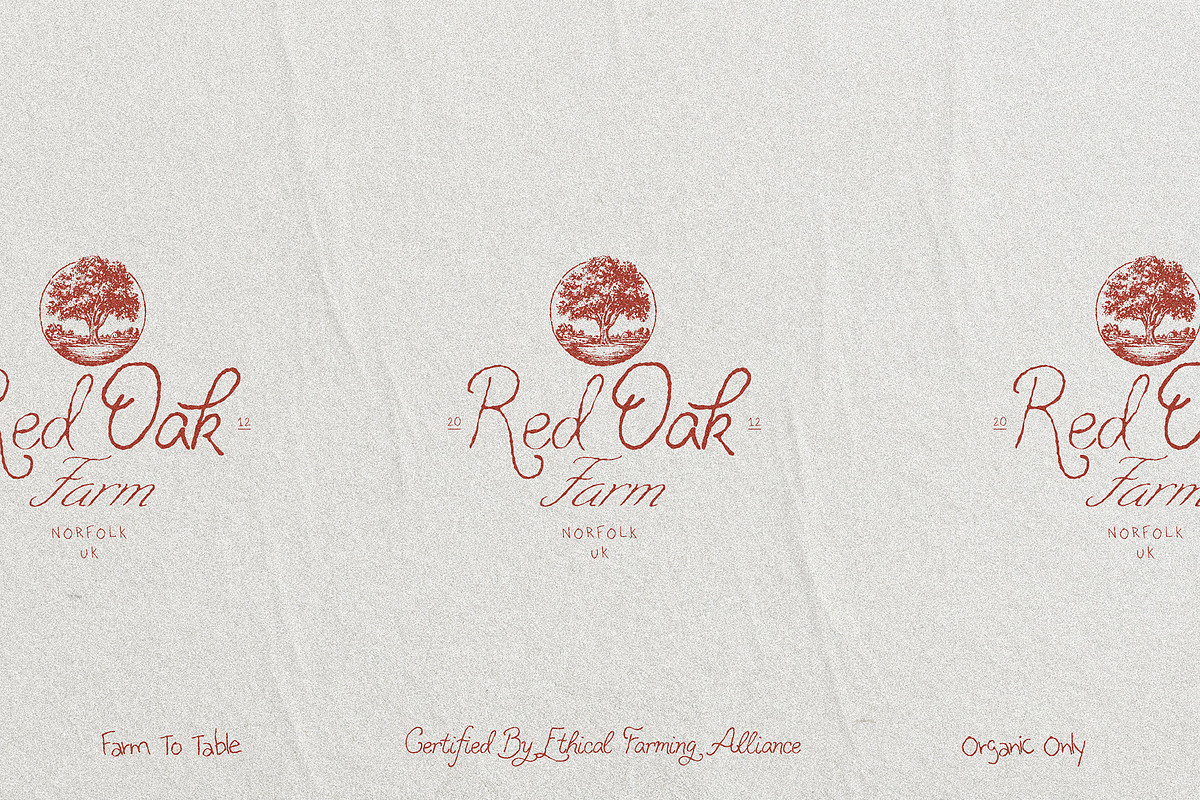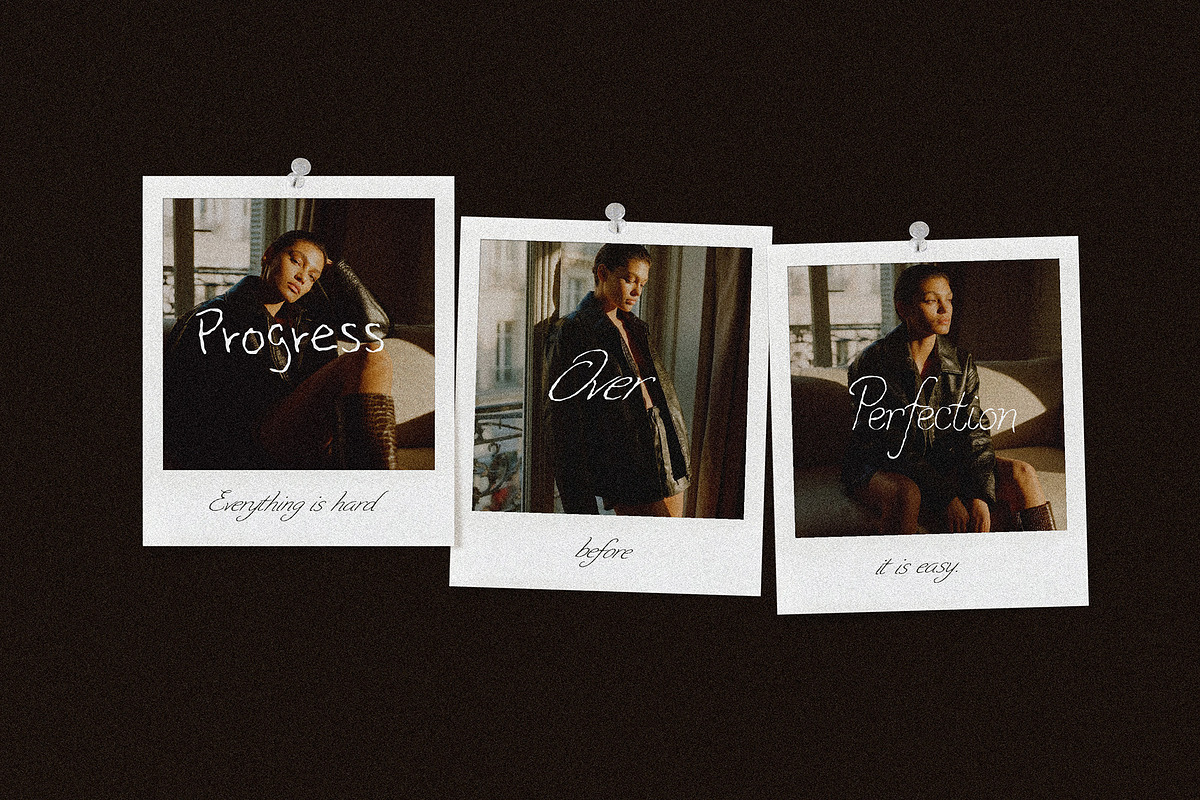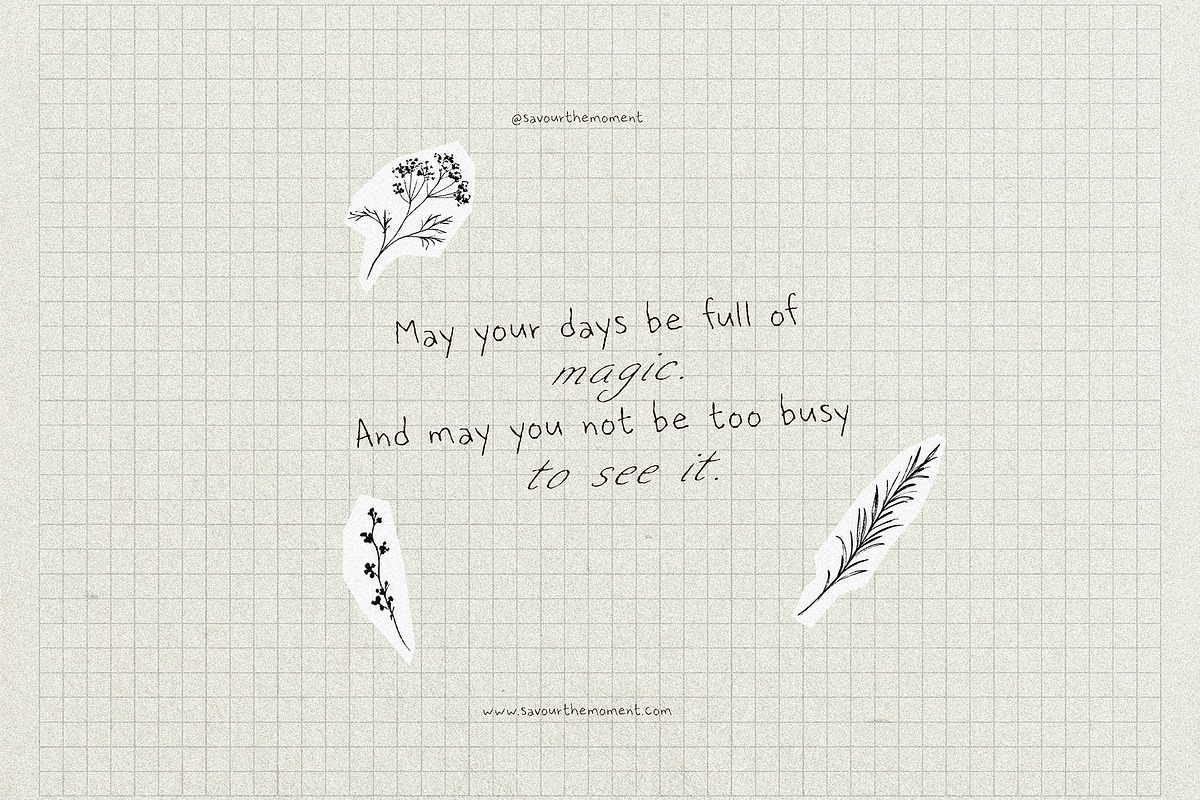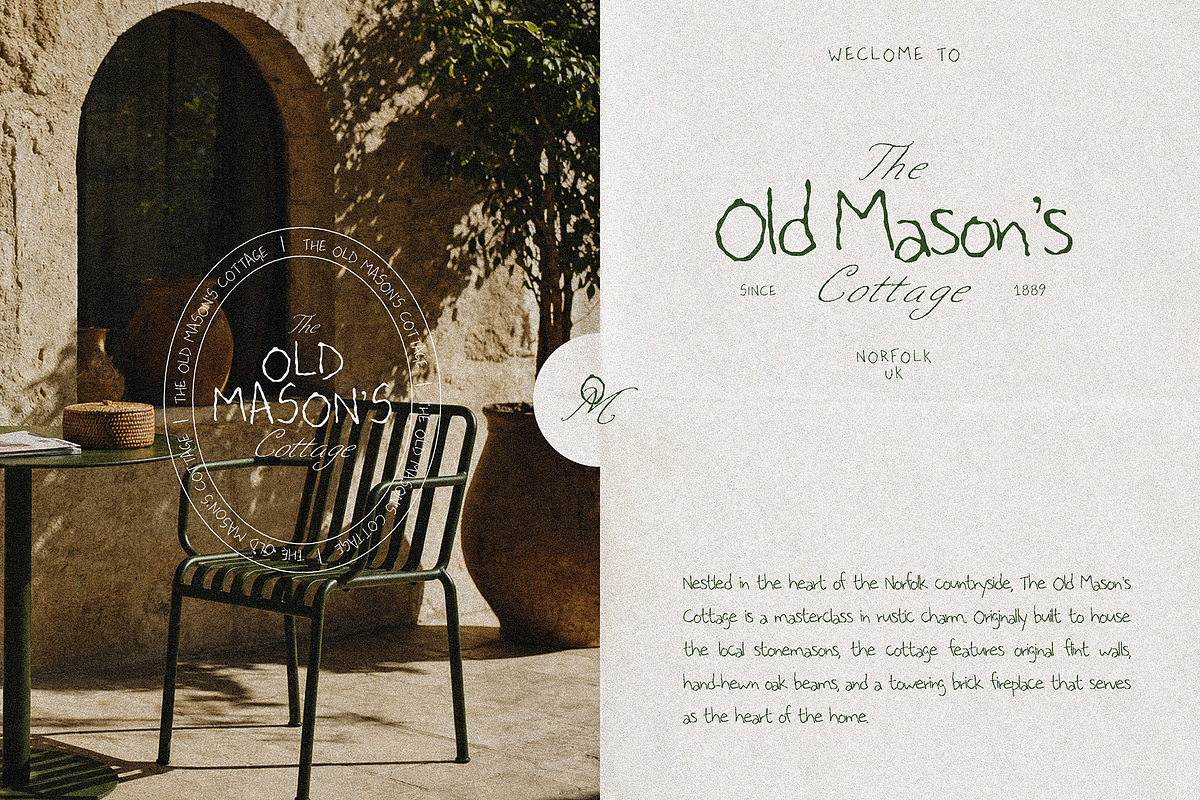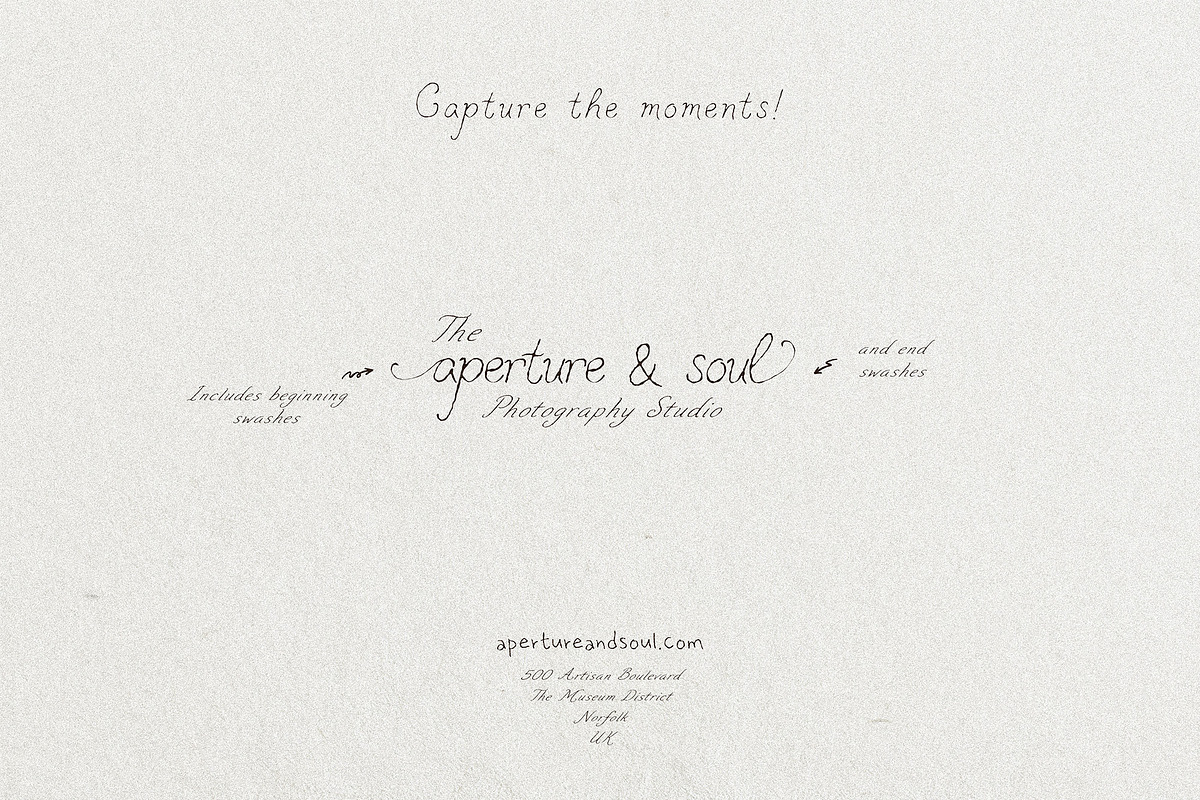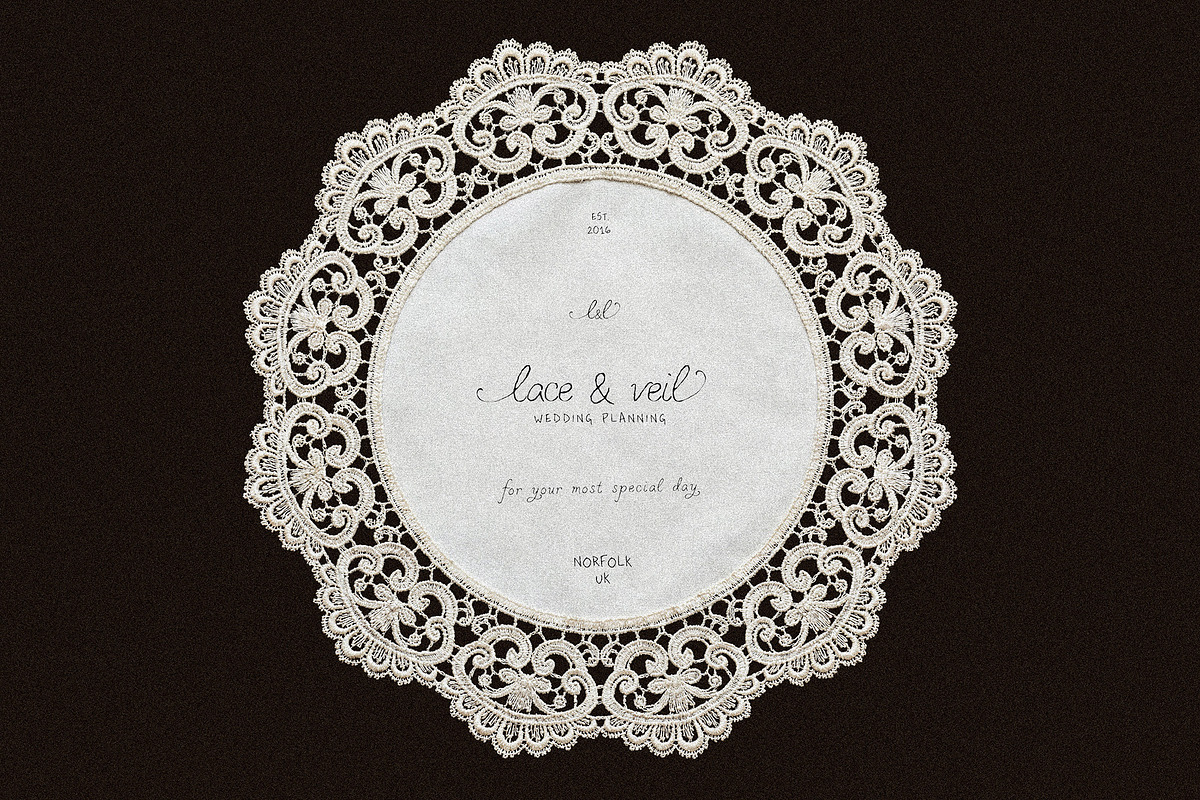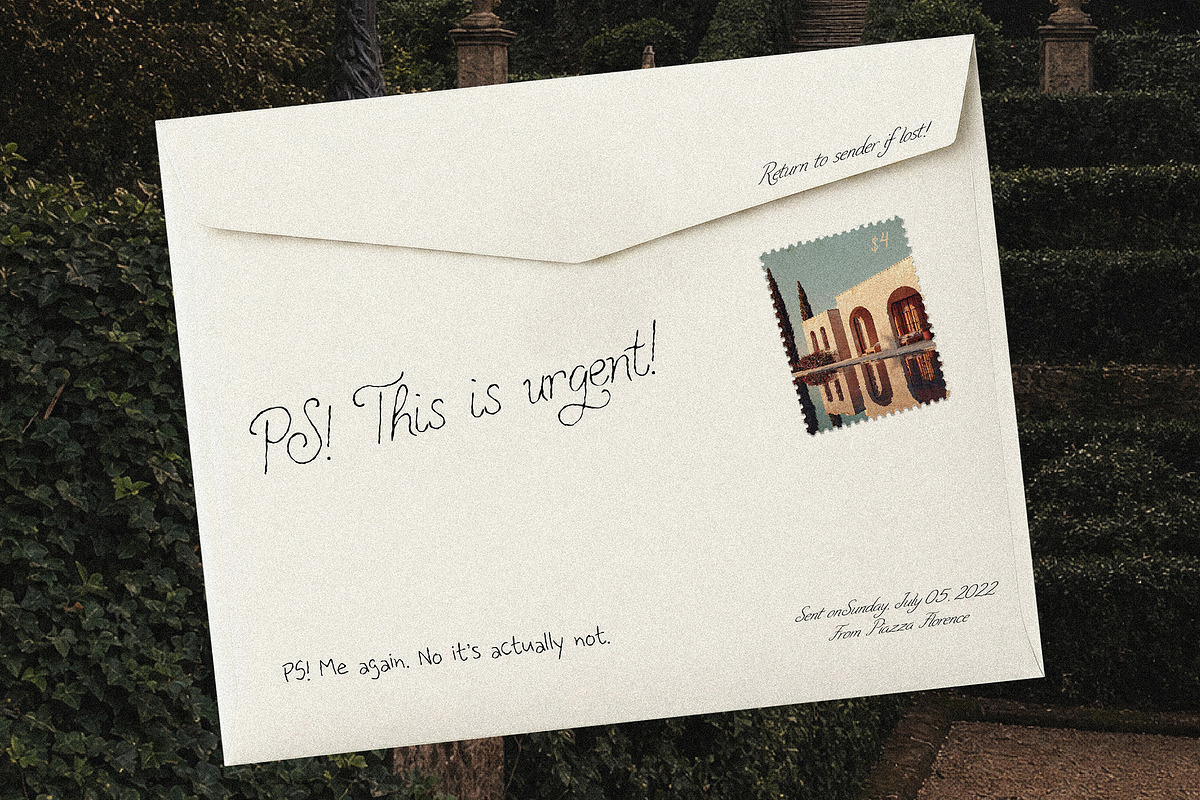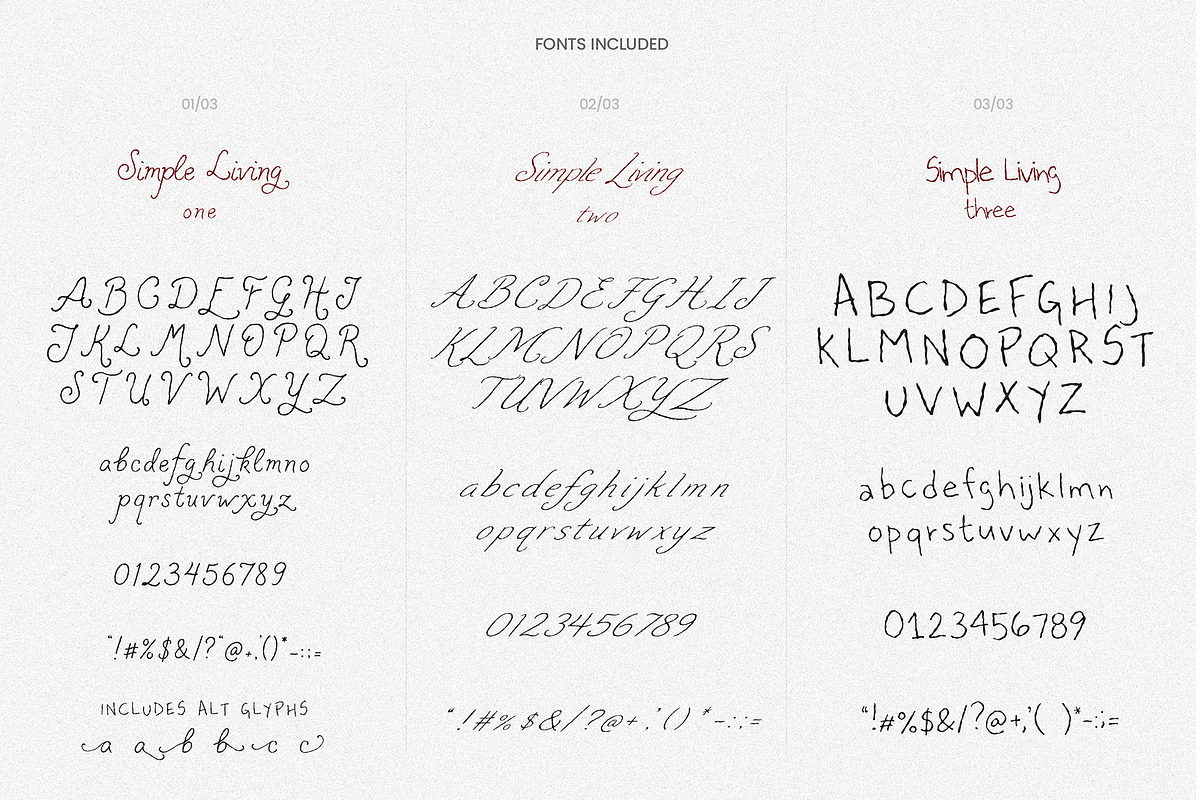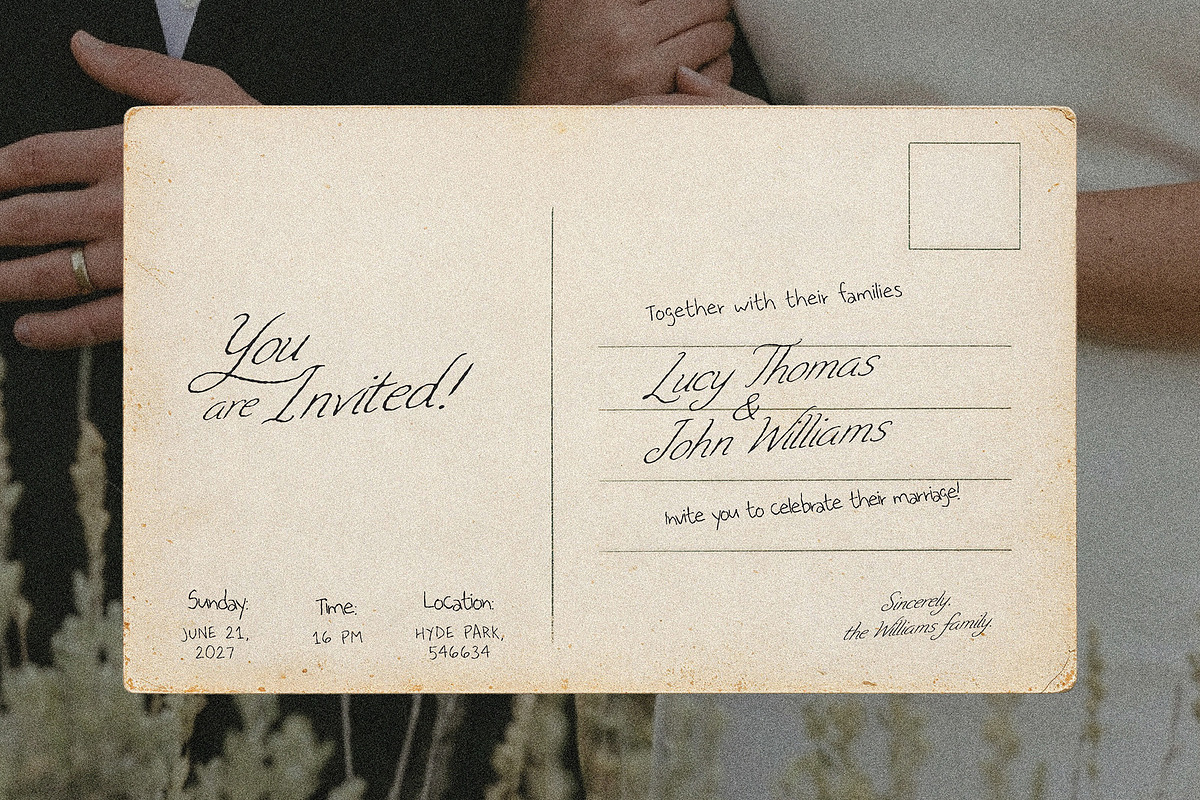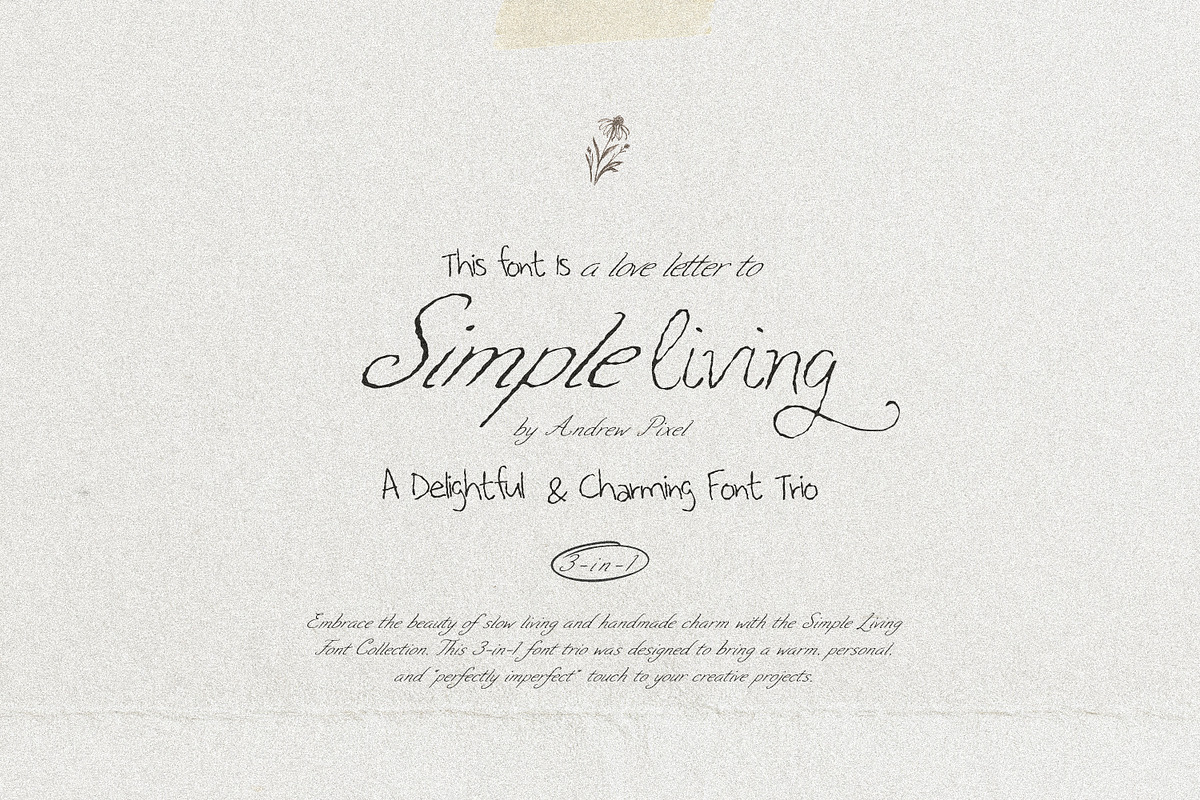
Simple Living - Handwritten Fonts
Embrace the beauty of slow living and handmade charm with the Simple Living Font Collection. This 3-in-1 font trio was designed to bring a warm, personal, and "perfectly imperfect" touch to your creative projects.
Whether you are designing heartfelt wedding invitations, cozy branding, or social media quotes, this collection provides a cohesive, hand-drawn aesthetic that feels like a breath of fresh air.
Branding & Logos: Create a signature look for small businesses, florists, or photographers.
Stationery: Beautiful for greeting cards, "Save the Dates," and thank-you notes.
Social Media: Stand out on Instagram and Pinterest with authentic, handwritten quotes.
Packaging: Add a personal, artisan touch to your product labels and tags.
Home Decor: Perfect for Cricut or Silhouette projects, wall art, and pillows.
Simple Living One (OTF) - With beginning and end swashes